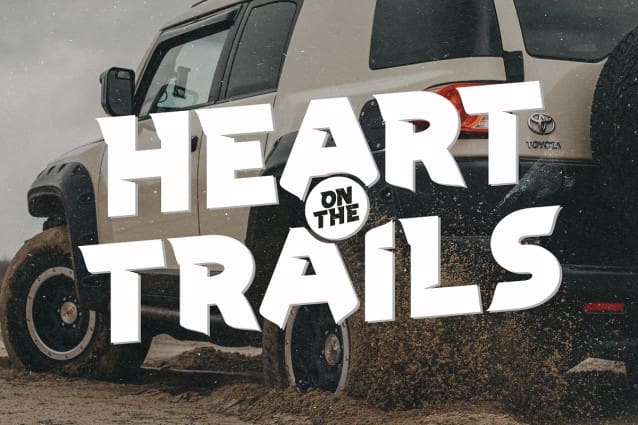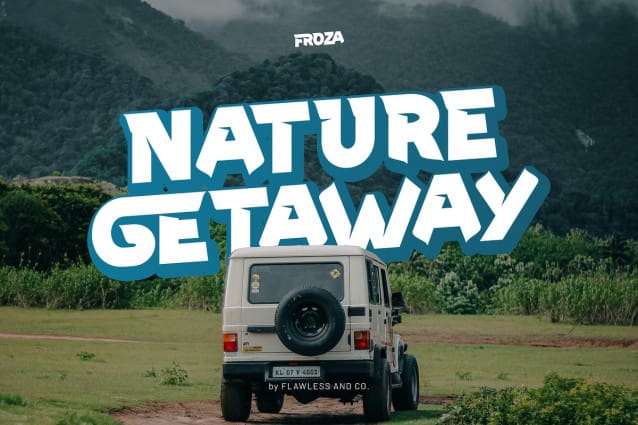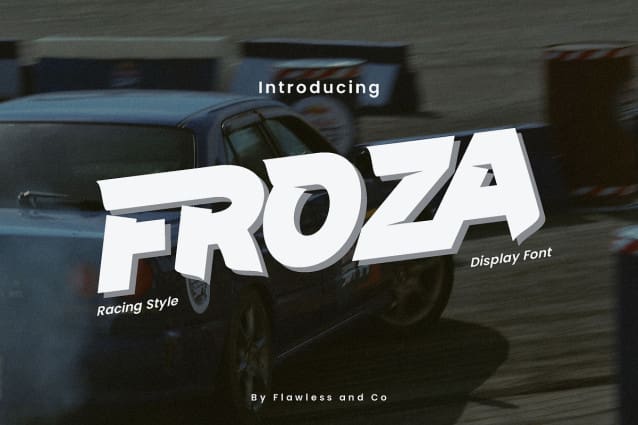
Froza Display Font
Froza Display Font a dynamic and powerful display font that captures the essence of speed, intensity, and adrenaline in the world of racing. With its bold and sleek letterforms, Froza is designed to make a lasting impact and evoke the excitement of high-speed races. This font is suitable for branding, business, logos, magazines, and others.